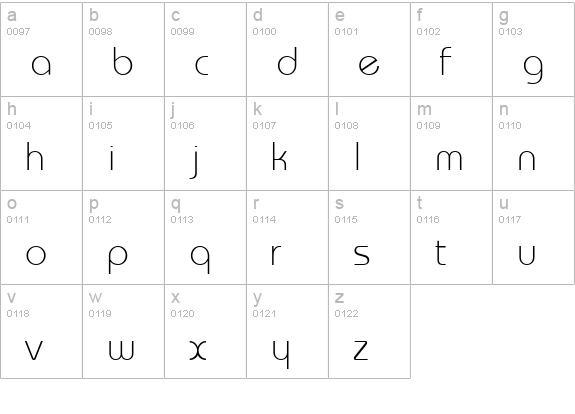
MonaKo Font Details
MonaKo font is a stunning display typeface that exudes elegance and sophistication. Its sleek and modern design makes it perfect for a wide range of projects, from branding to editorial design. The clean lines and unique letterforms of MonaKo font will surely make your text stand out and leave a lasting impression. What sets MonaKo font apart is not only its aesthetic appeal but also its versatility. Whether you're working on a logo, poster, website, or any other design project, MonaKo font will elevate your work to the next level. And the best part? MonaKo font is completely free to download at FontsMarket.com. So you can add this beautiful typeface to your collection without breaking the bank. Don't miss out on the opportunity to enhance your designs with the elegant and stylish MonaKo font. Download it now and see the difference it can make in your projects!